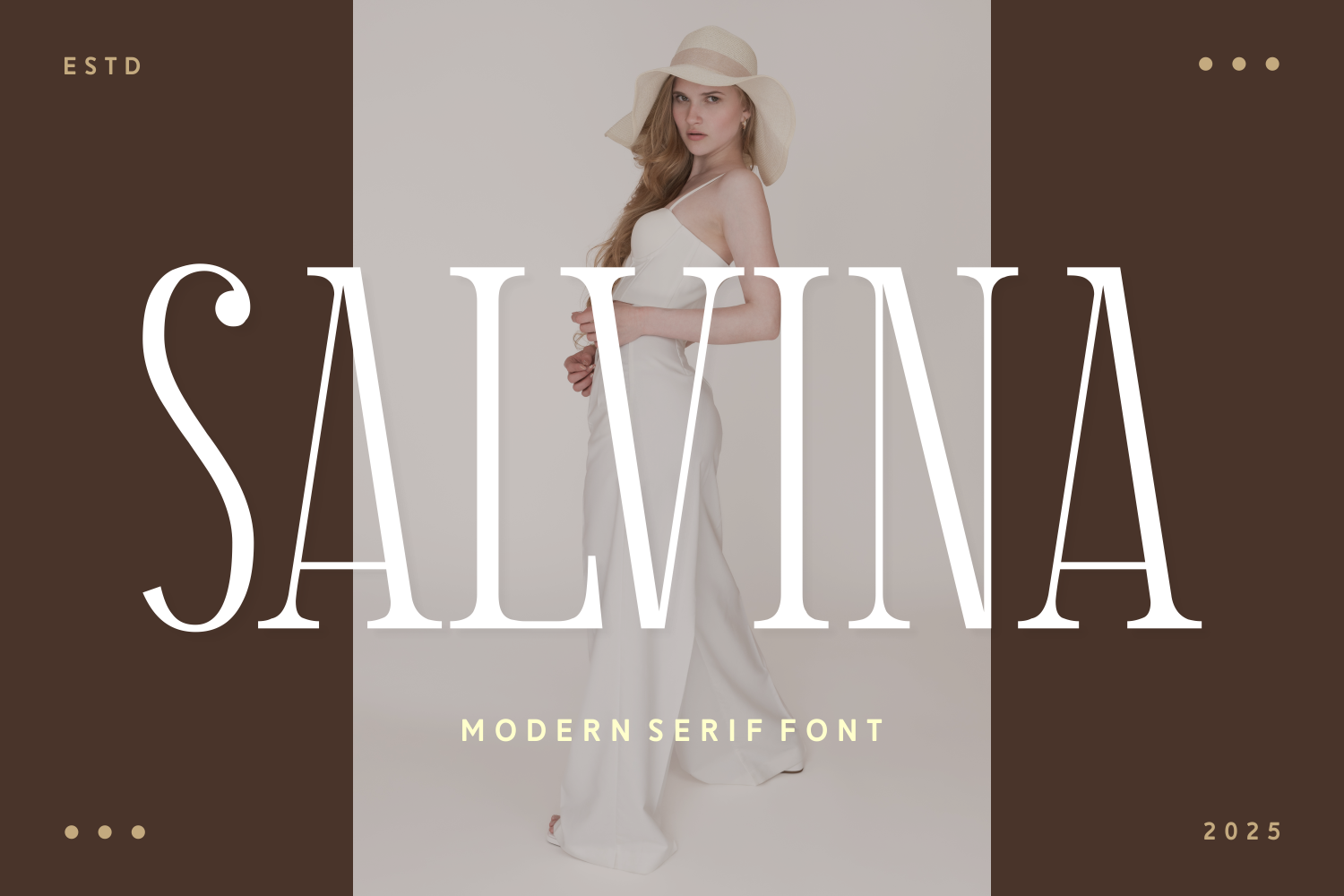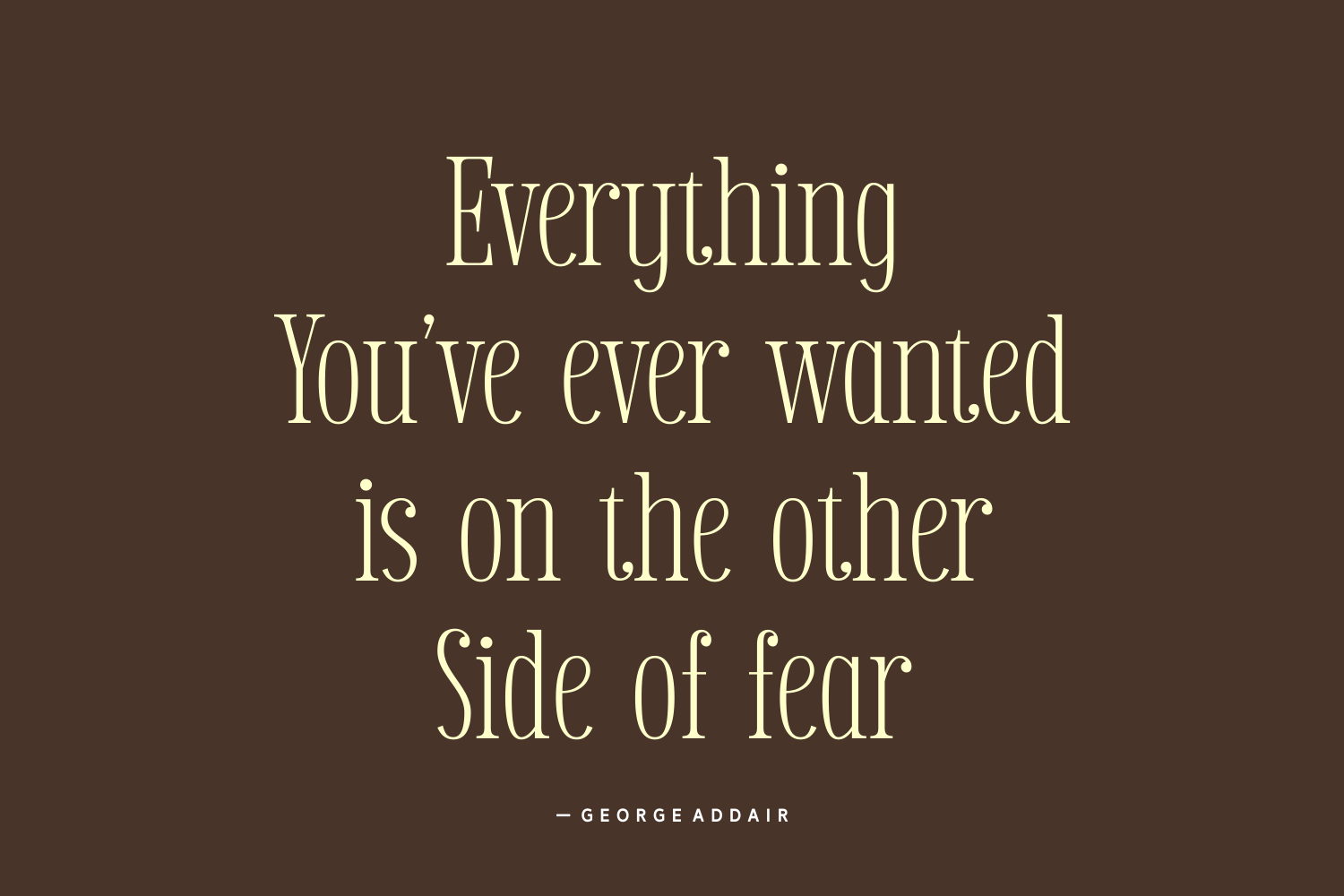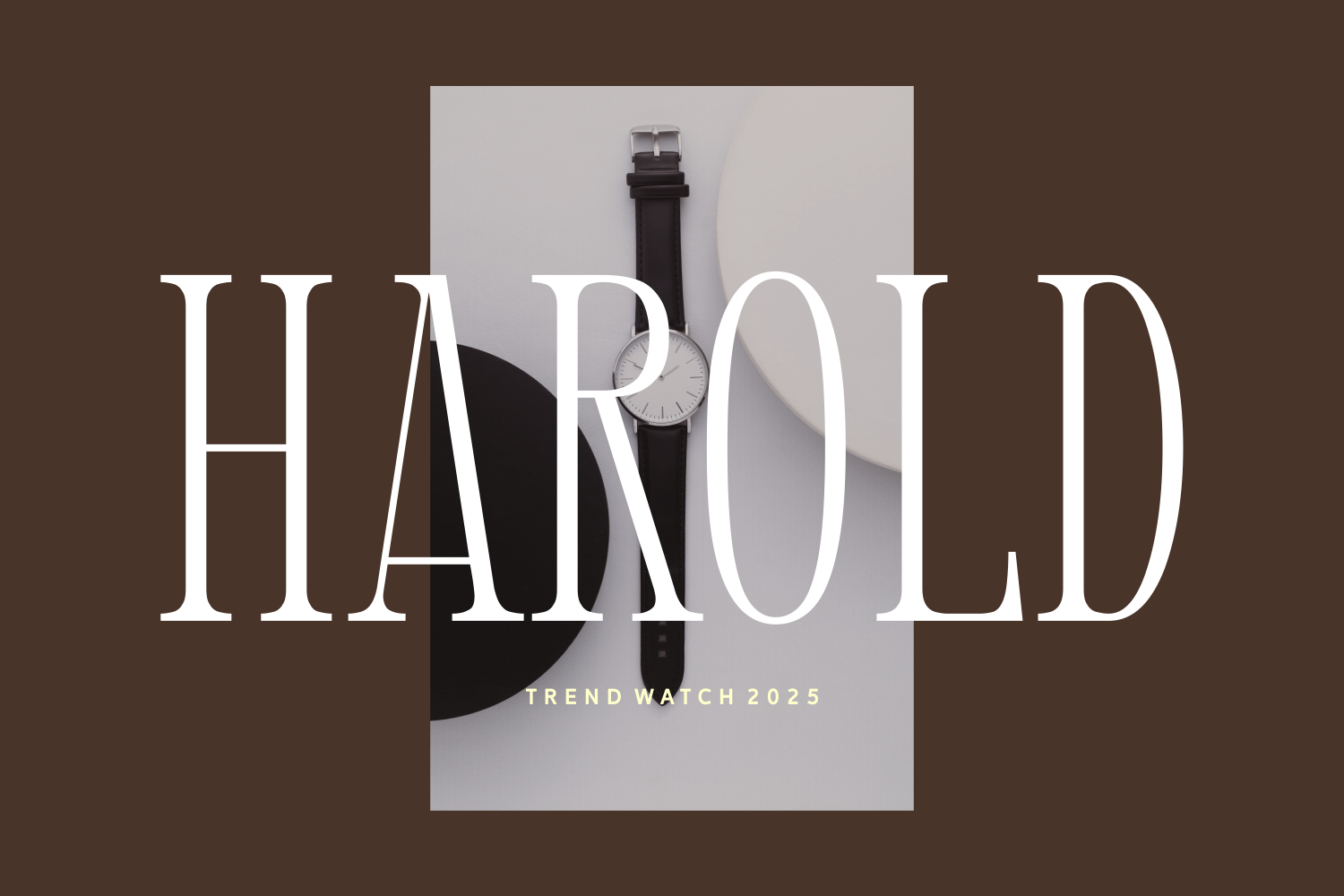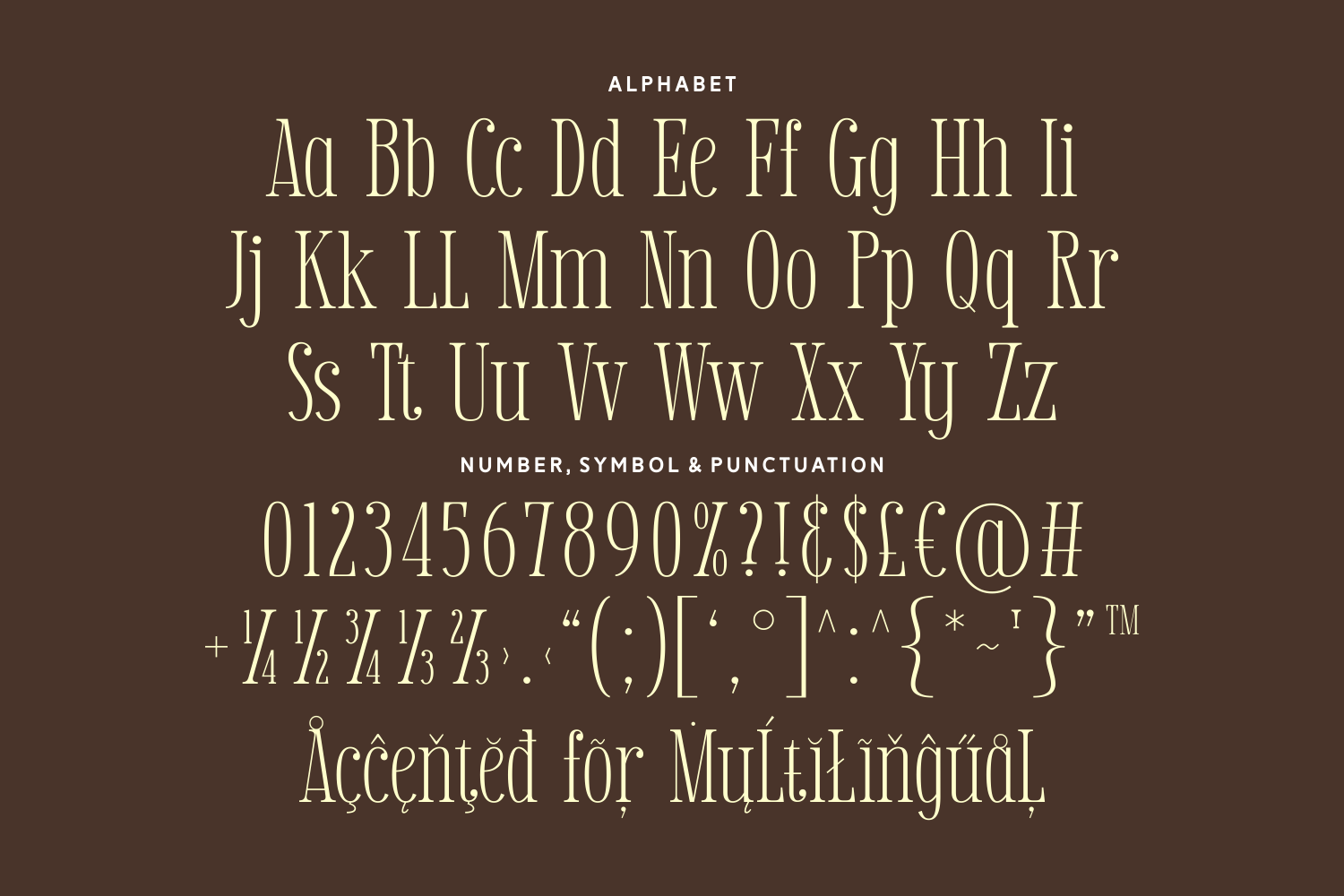
Salvina is a tall and graceful modern serif font that exudes fashion-forward elegance and timeless charm. Its refined silhouette and confident presence make every word feel poised and polished—ideal for designers who want their typography to make a sophisticated statement.